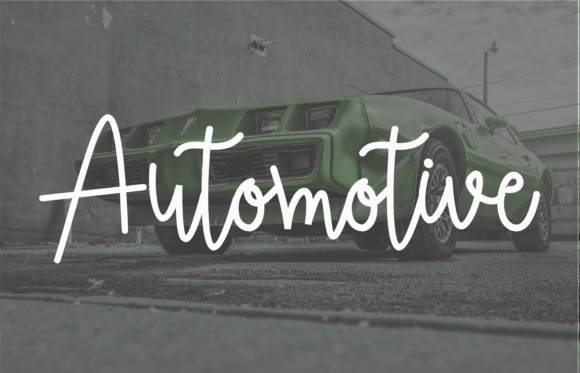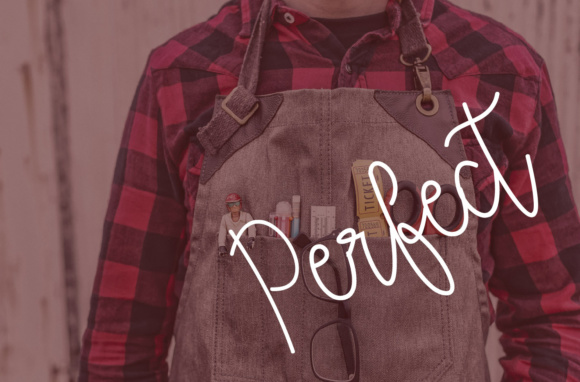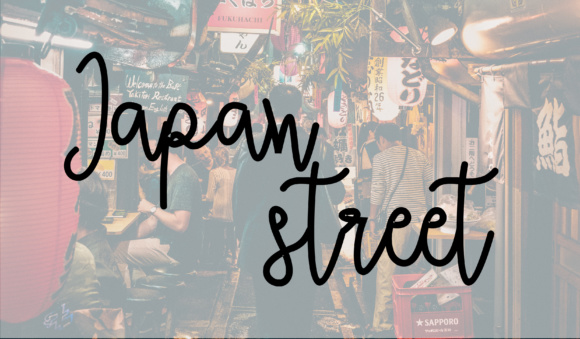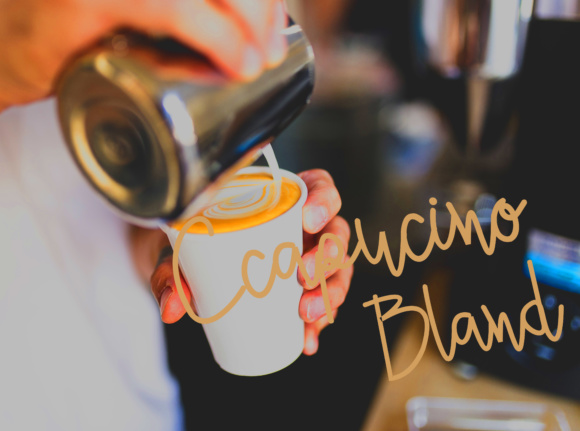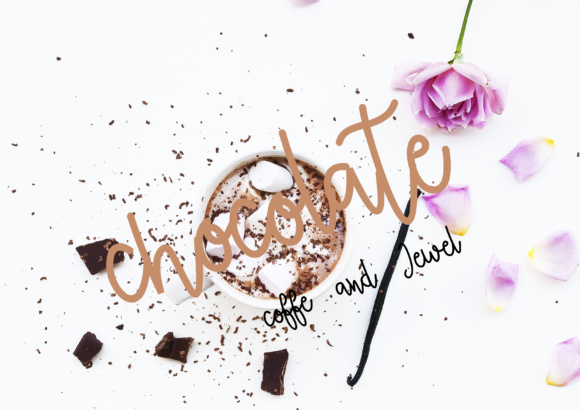
Ecuador Font
About Ecuador Font
Ecuador is a casual and relaxed script font, perfect for use in a wide range of designs. This font has a clean yet free-form appeal, and works in fashionable content.